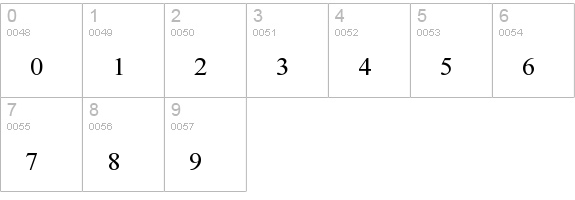
Angsana New Font Details
Introducing Angsana New font, a modern and elegant typeface perfect for a wide range of design projects. This versatile font features sleek lines and a contemporary aesthetic that will elevate any design. With its clean and sophisticated look, Angsana New is ideal for branding, packaging, signage, and more. What sets Angsana New font apart is not just its style, but also its accessibility. This font is available for free download at FontsMarket.com, making it easy for designers to incorporate this beautiful typeface into their work without any cost. Whether you're creating a logo, poster, website, or any other design project, Angsana New font is a fantastic choice that will add a touch of sophistication and professionalism. Don't miss out on the opportunity to use Angsana New font in your next project. Download it for free today at FontsMarket.com and experience the beauty and versatility of this stunning typeface.